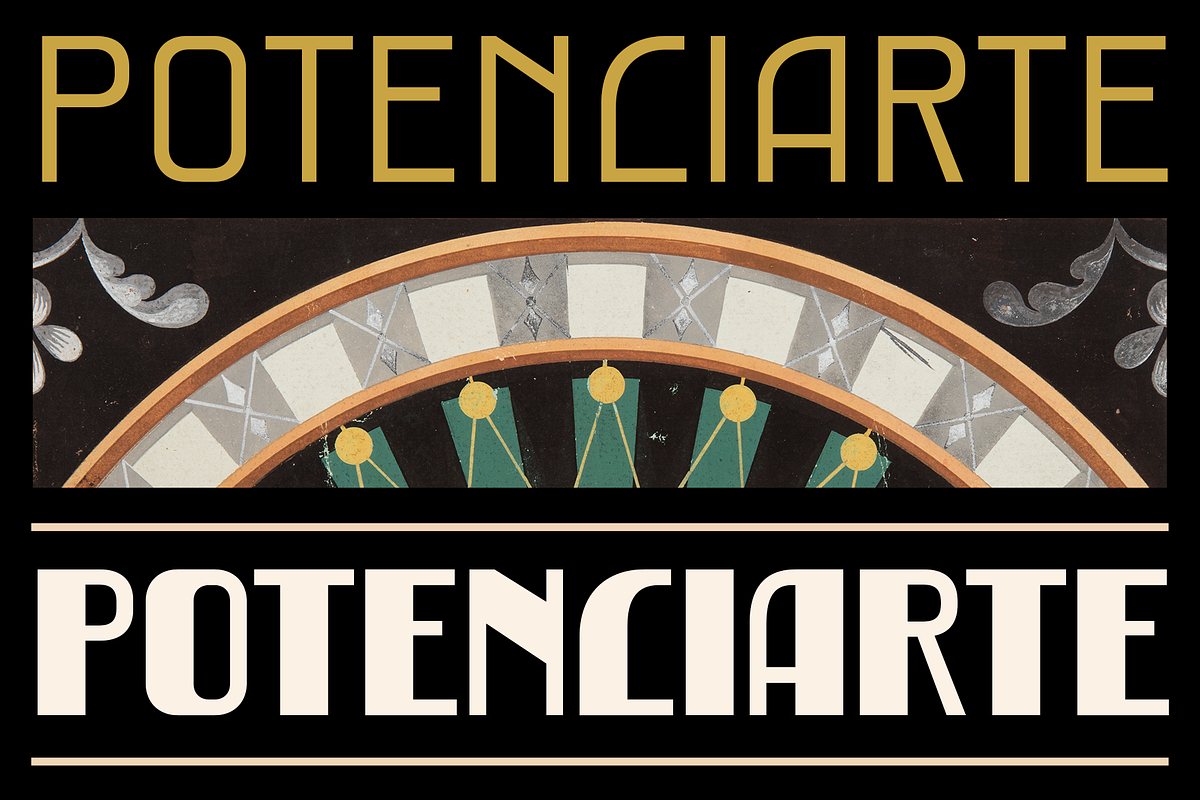
Potenciarte - Art Deco Fonts Free Download
Step into the roaring twenties with the Potenciarte - Art Deco Fonts Free Download — a luxurious, vintage-inspired typeface that radiates elegance and old-school glamour. With its sharp geometric lines, decorative details, and bold symmetry, Potenciarte is ideal for event posters, luxury branding, wedding invitations, boutique logos, and anything that needs a golden-age touch.
This font captures the spirit of the Art Deco movement — timeless, classy, and full of flair. Whether you're designing for a cocktail lounge, fashion campaign, or a high-society gala, Potenciarte turns your typography into visual architecture.